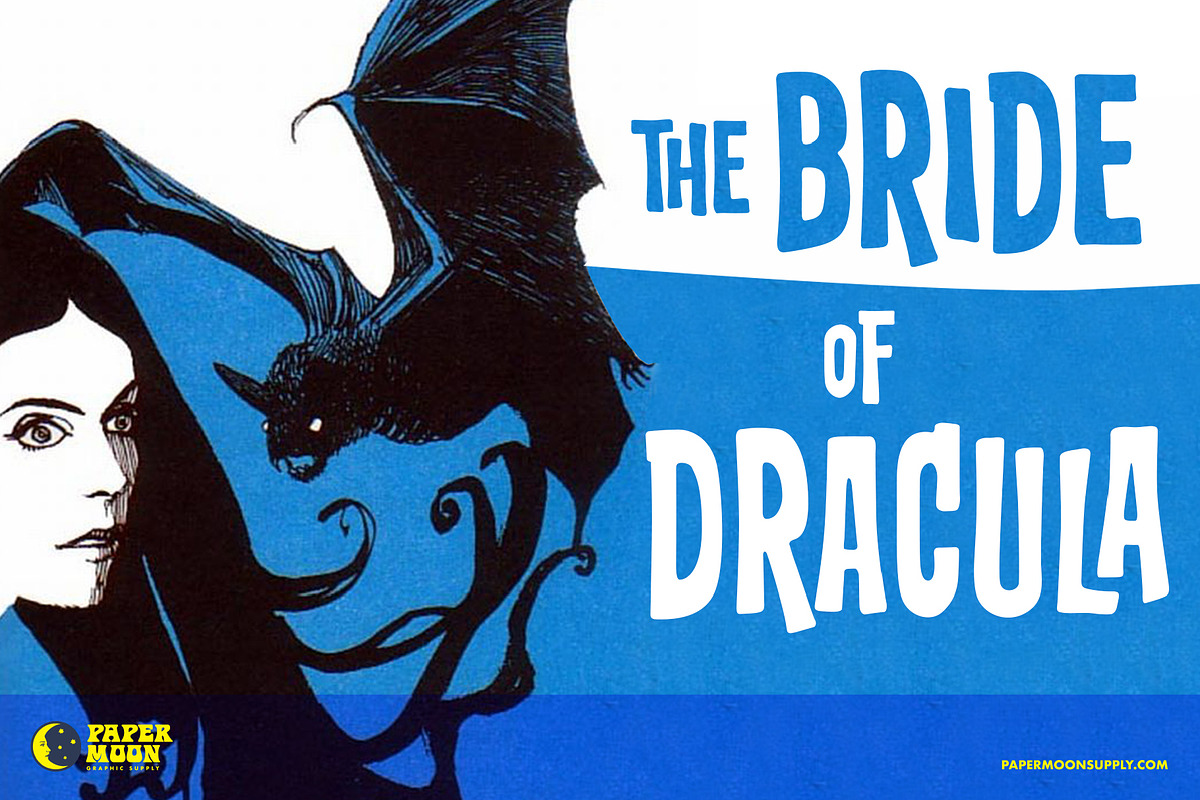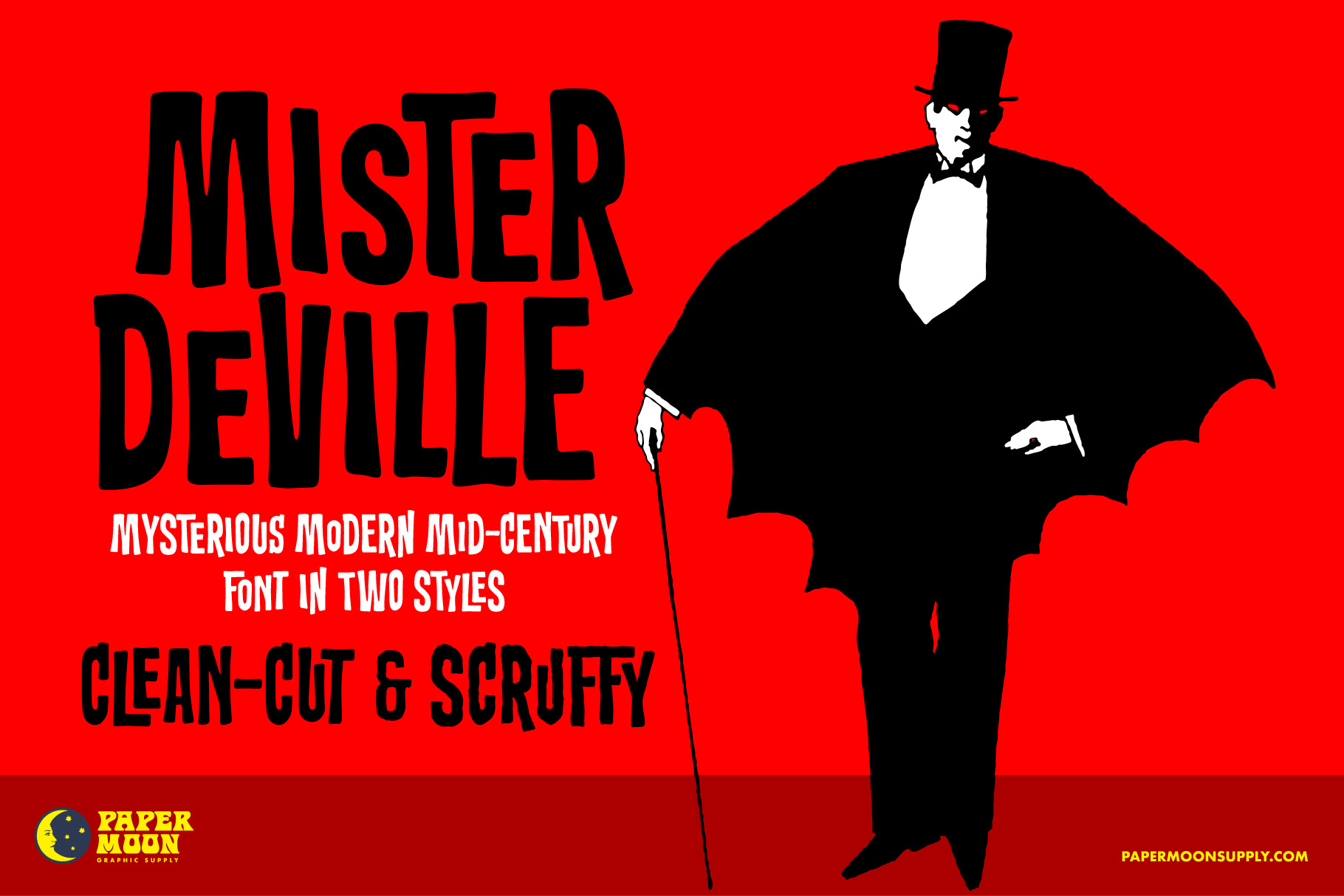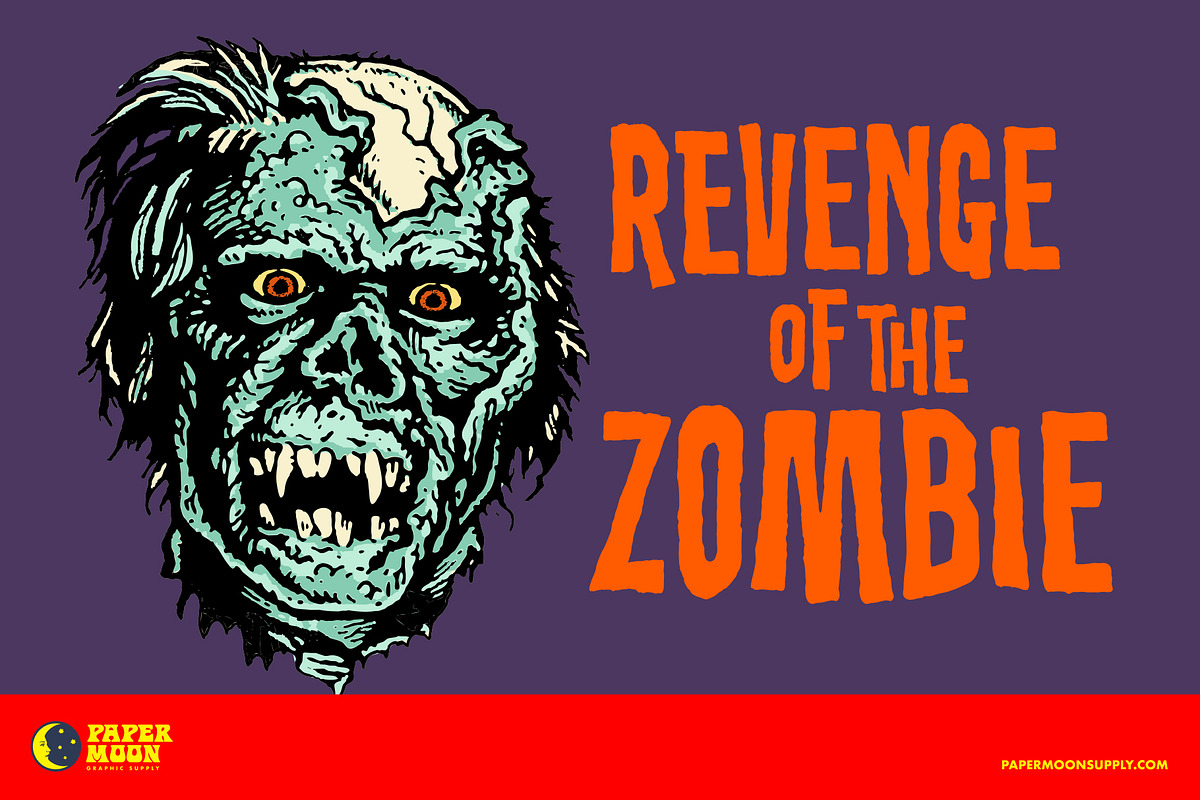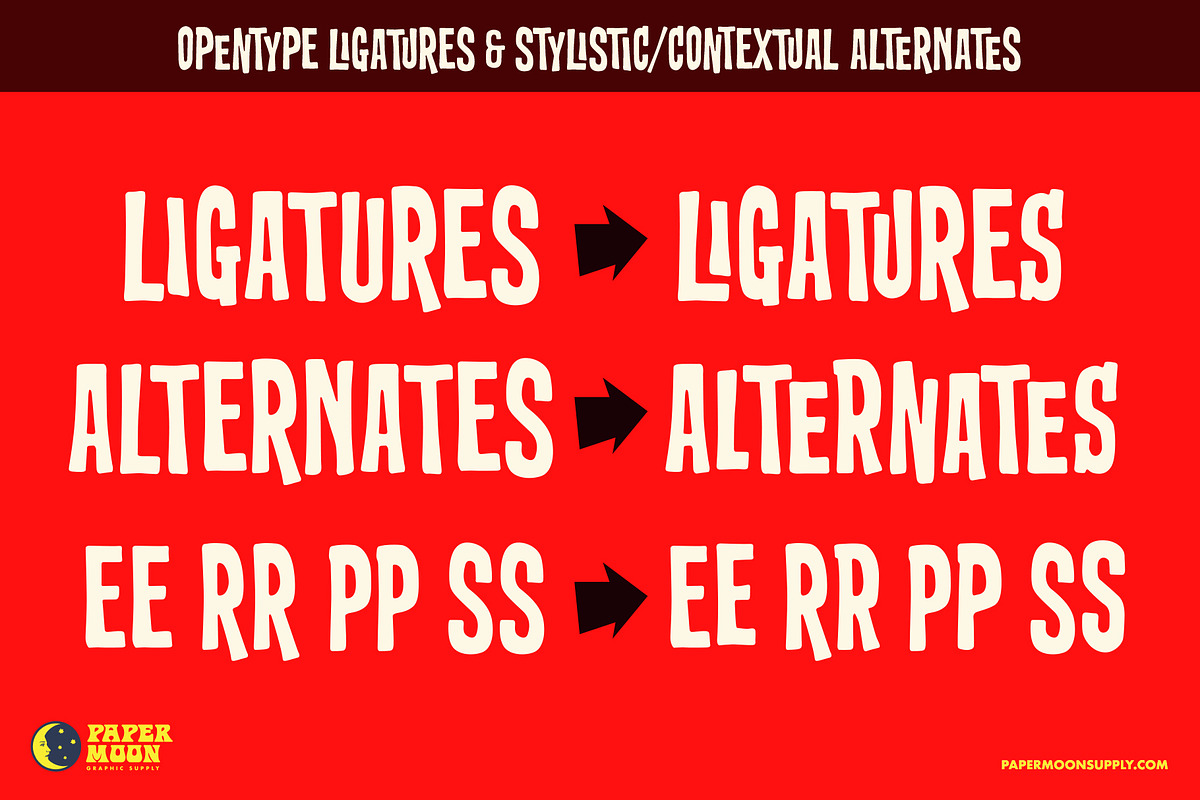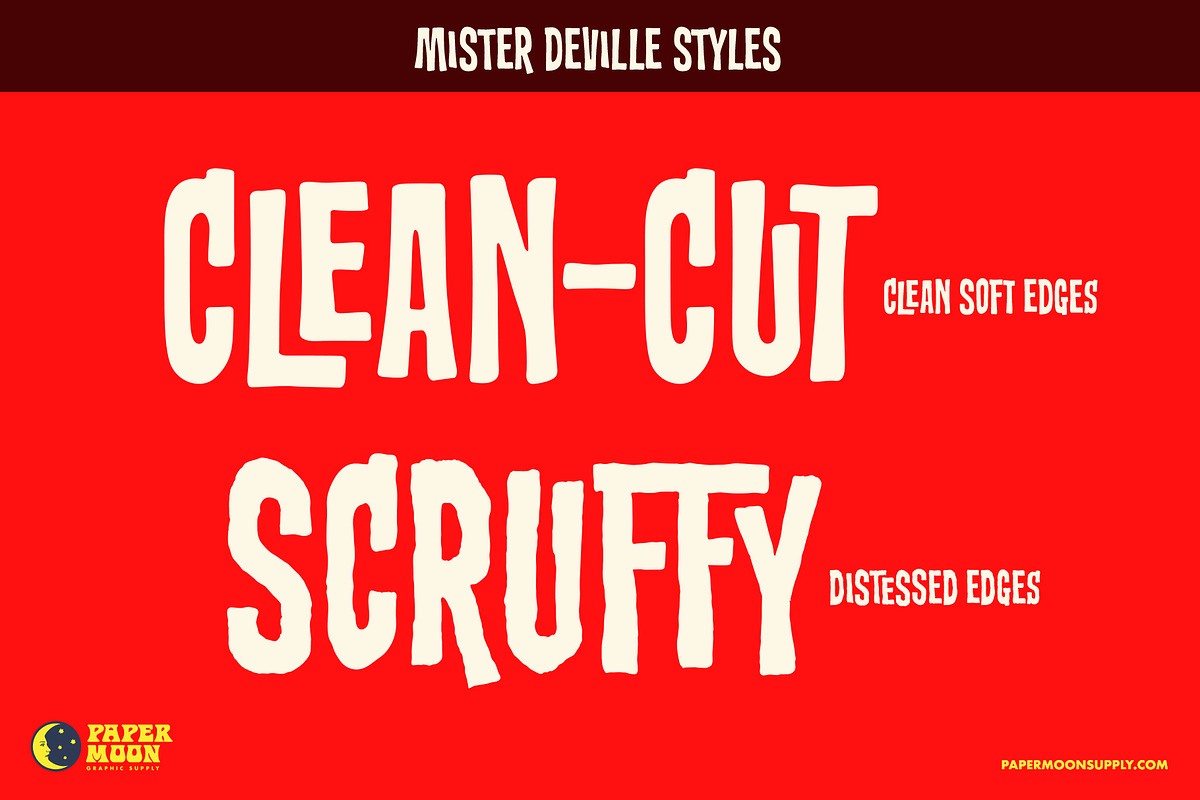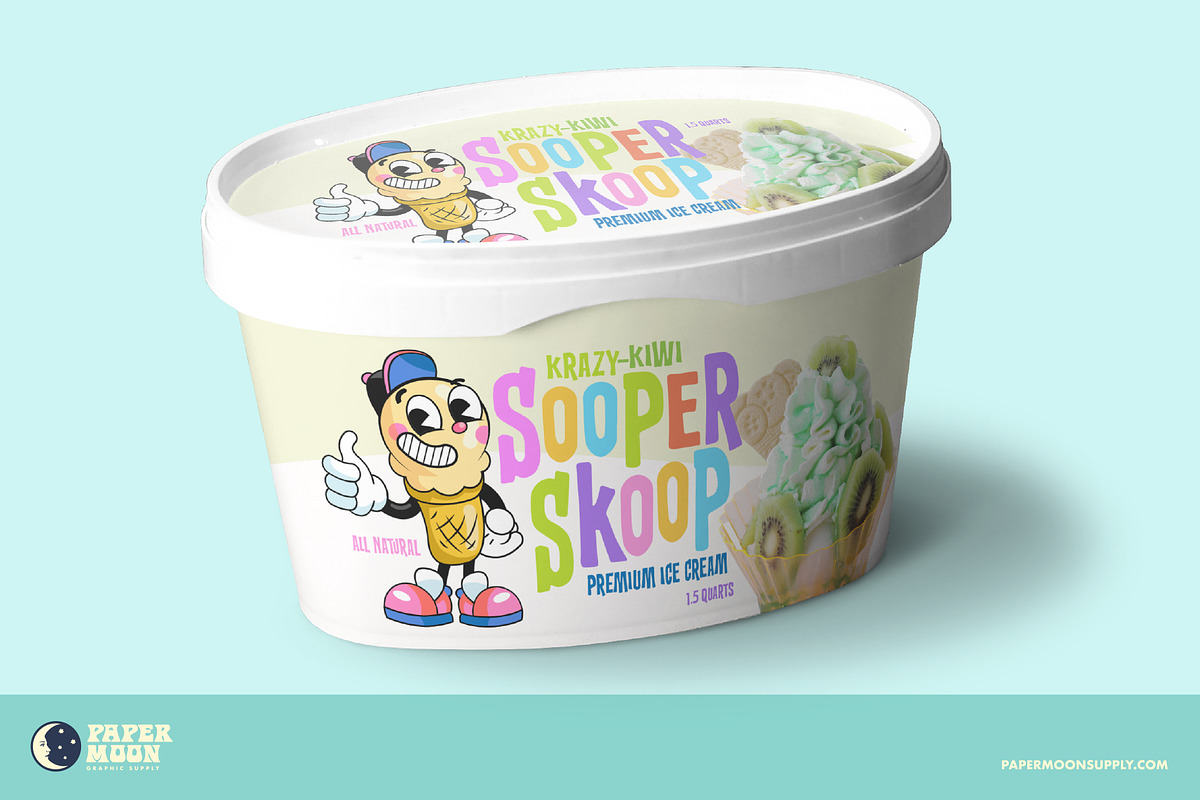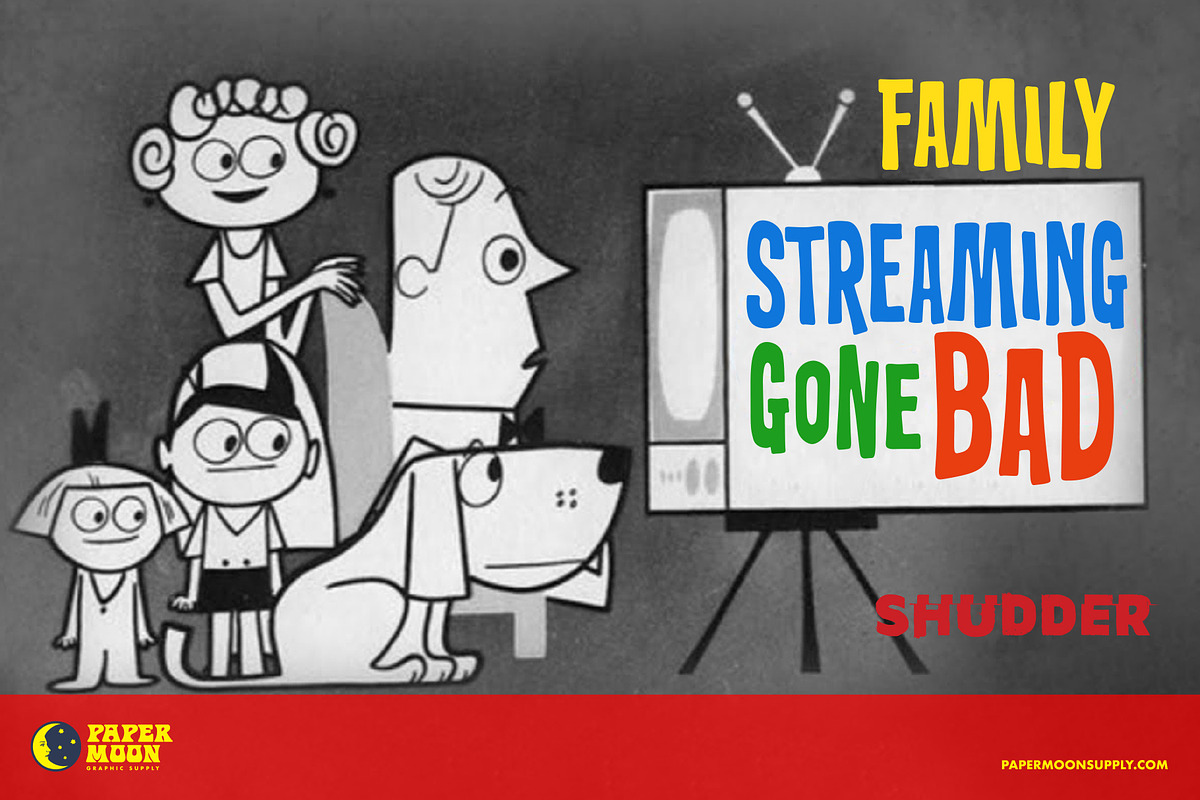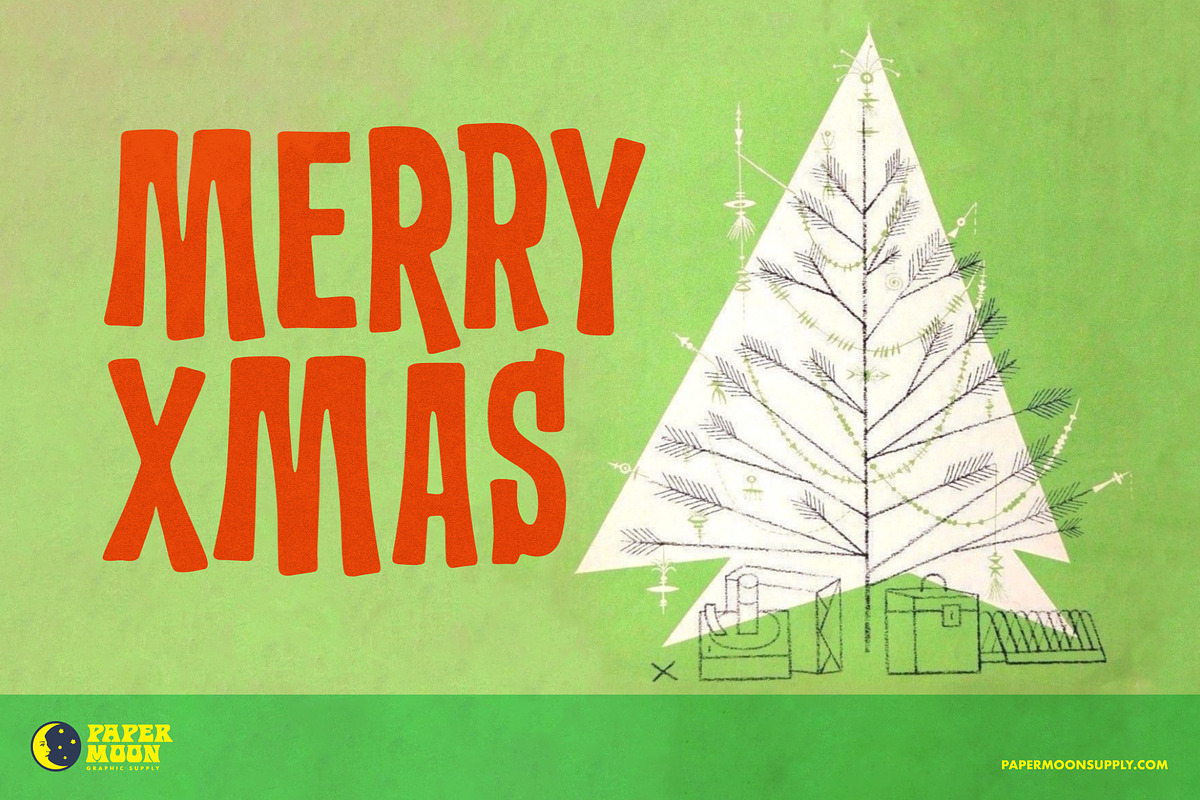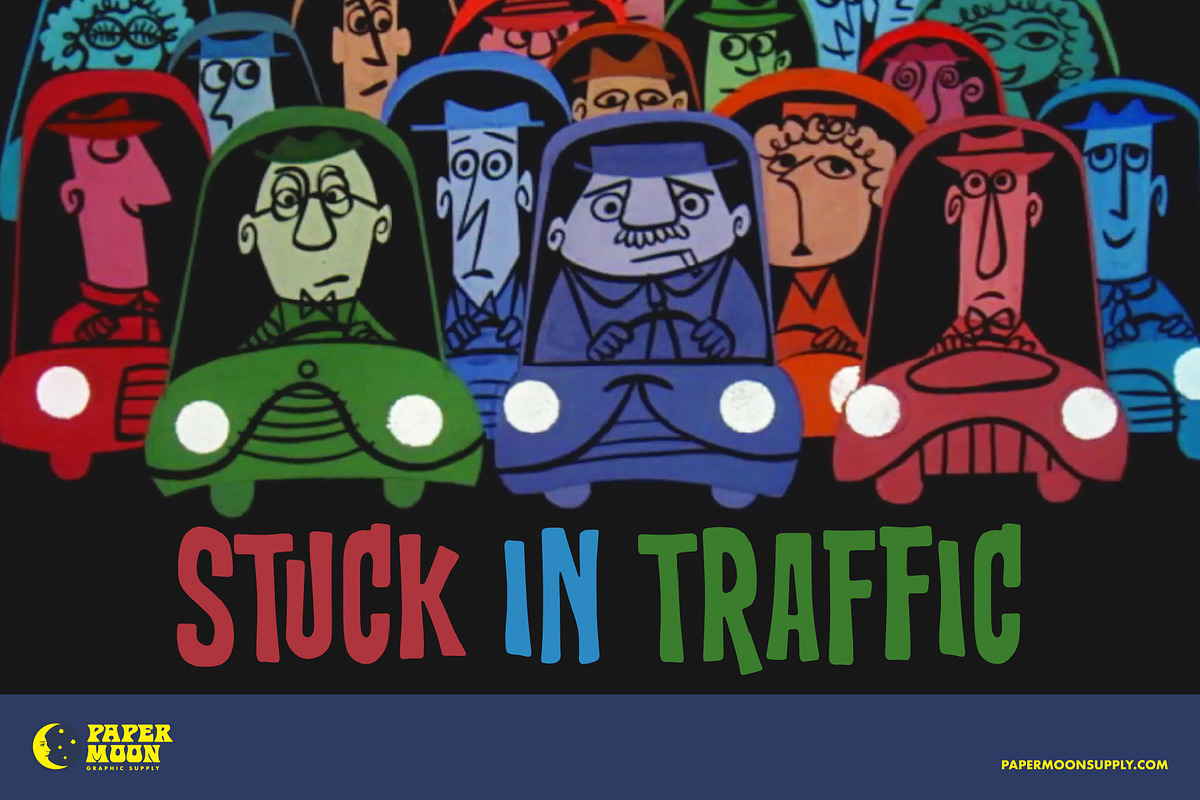
PM Mister DeVille Midcentury Font
A new Mid-century Modern font from Paper Moon Graphic Supply
When Mister DeVille comes to town things start to get interesting. His dapper mid-century modern style gains sway with the who's-who of designers. His charm is perfect for holiday parties and retro marketing. But after dark his mysterious side haunts hidden alleys and graveyards, especially on Halloween.
Also includes bonus creepy Halloween vectors.
Mister DeVille was designed by award-winning illustrator and designer Scott Banks.